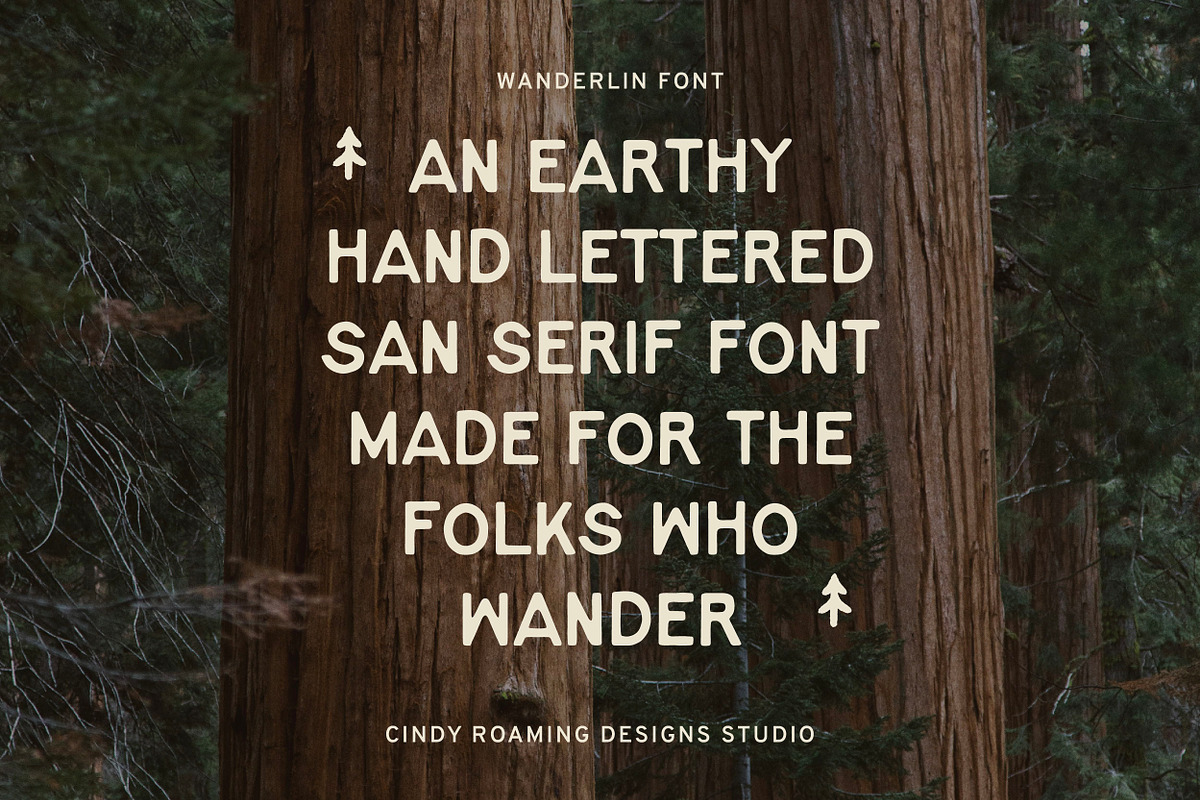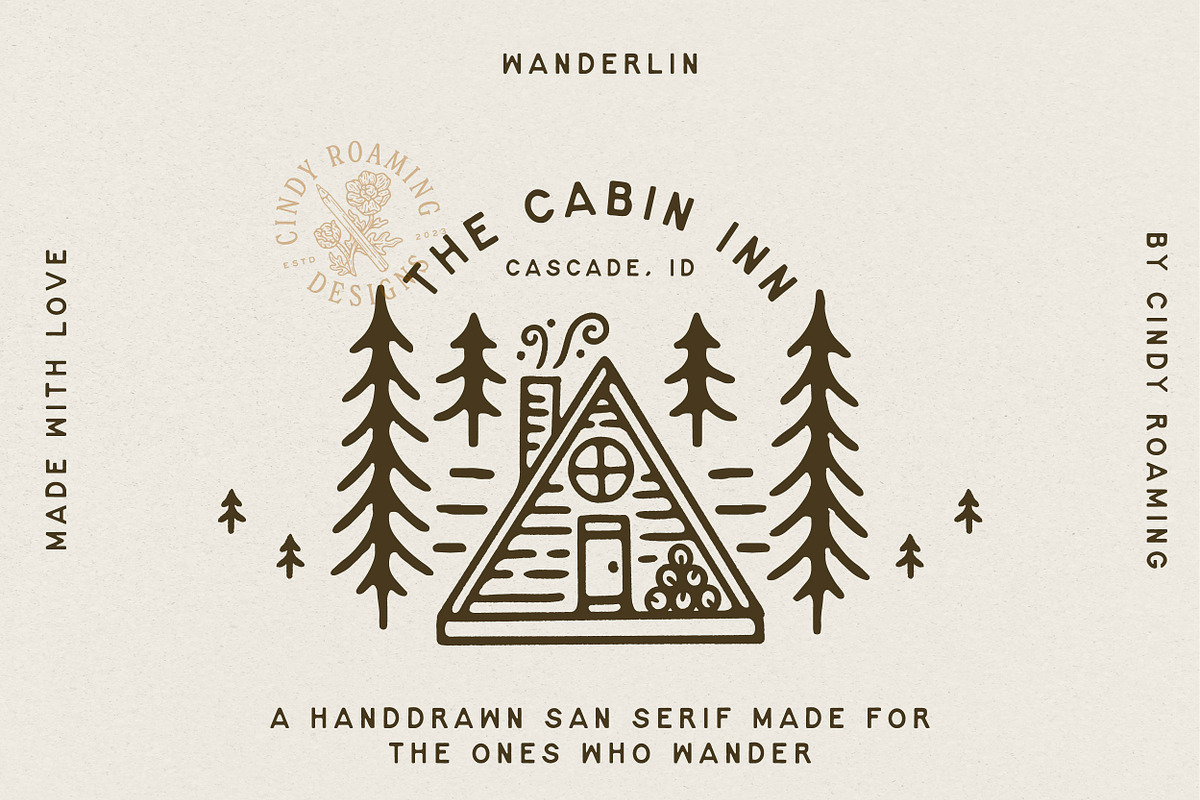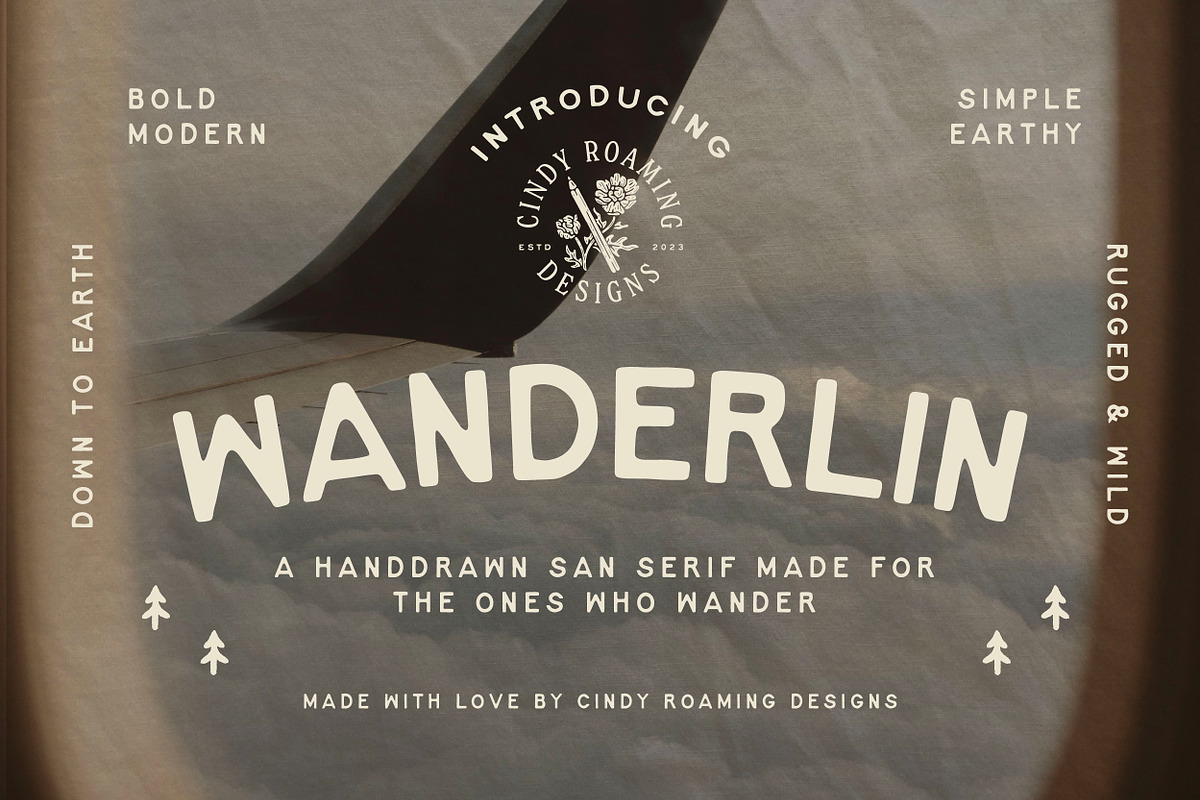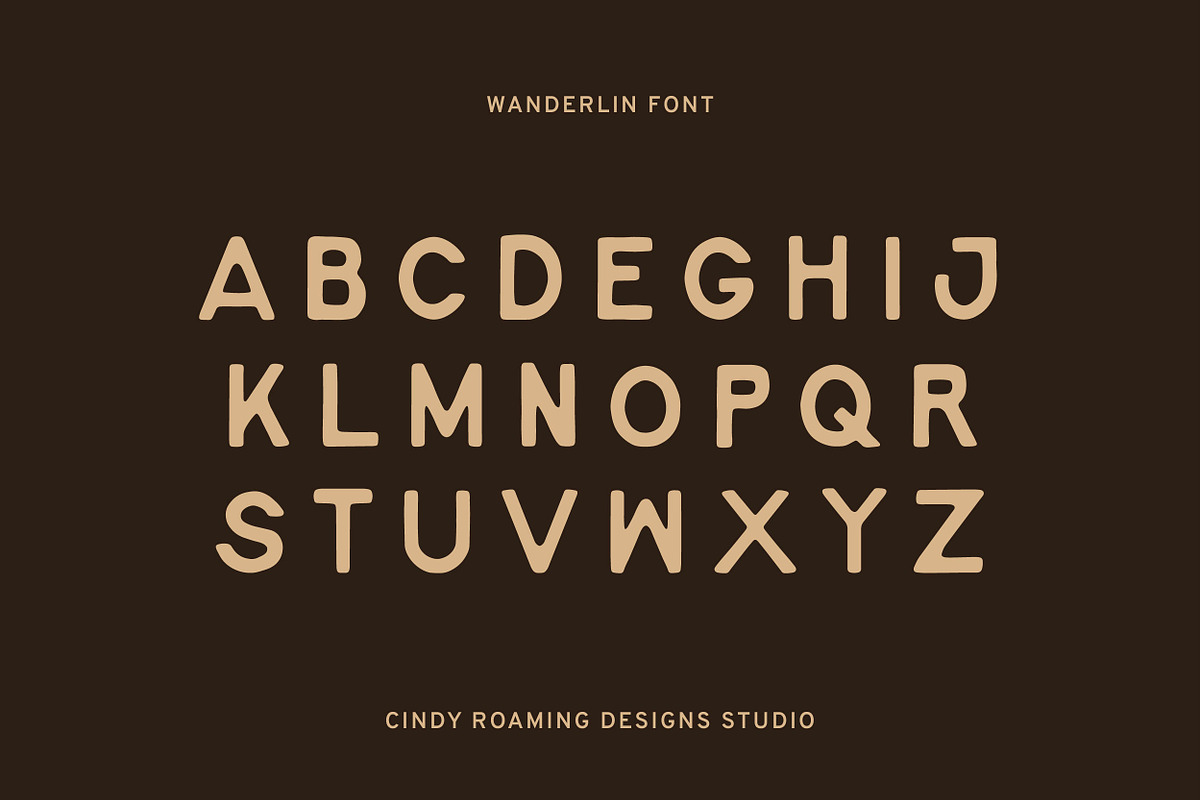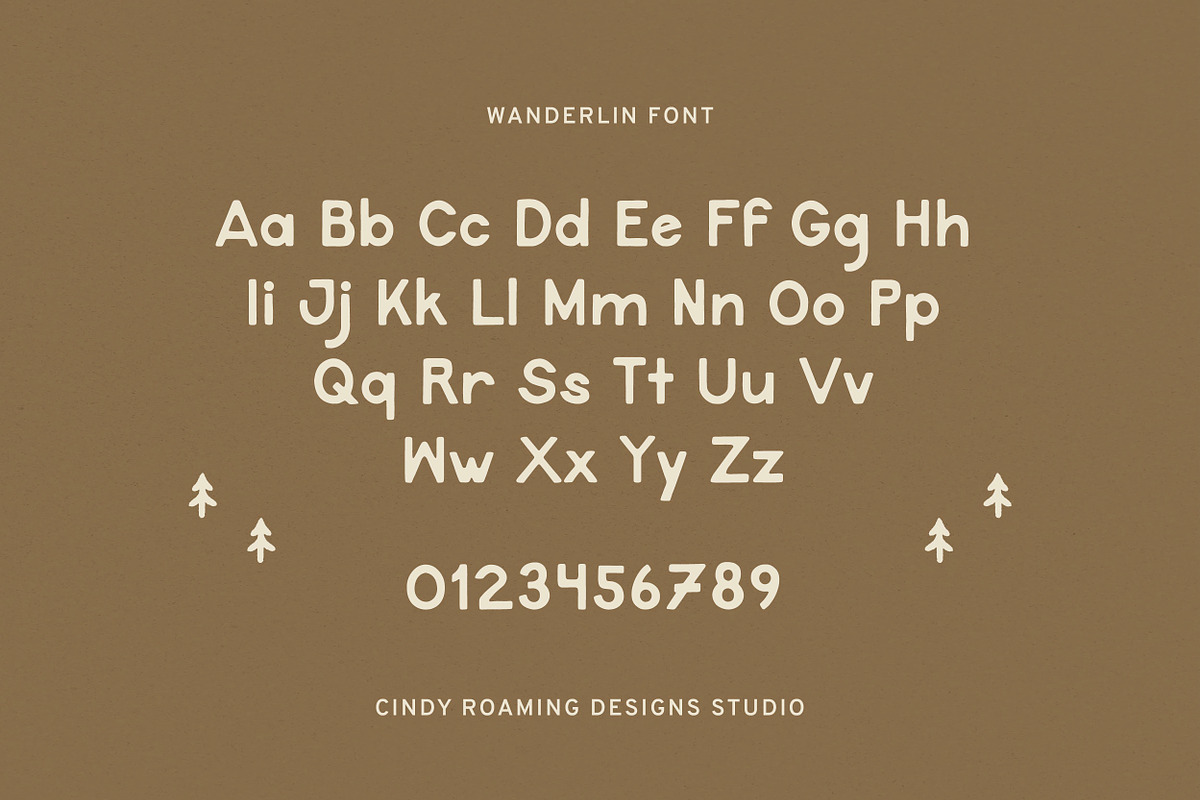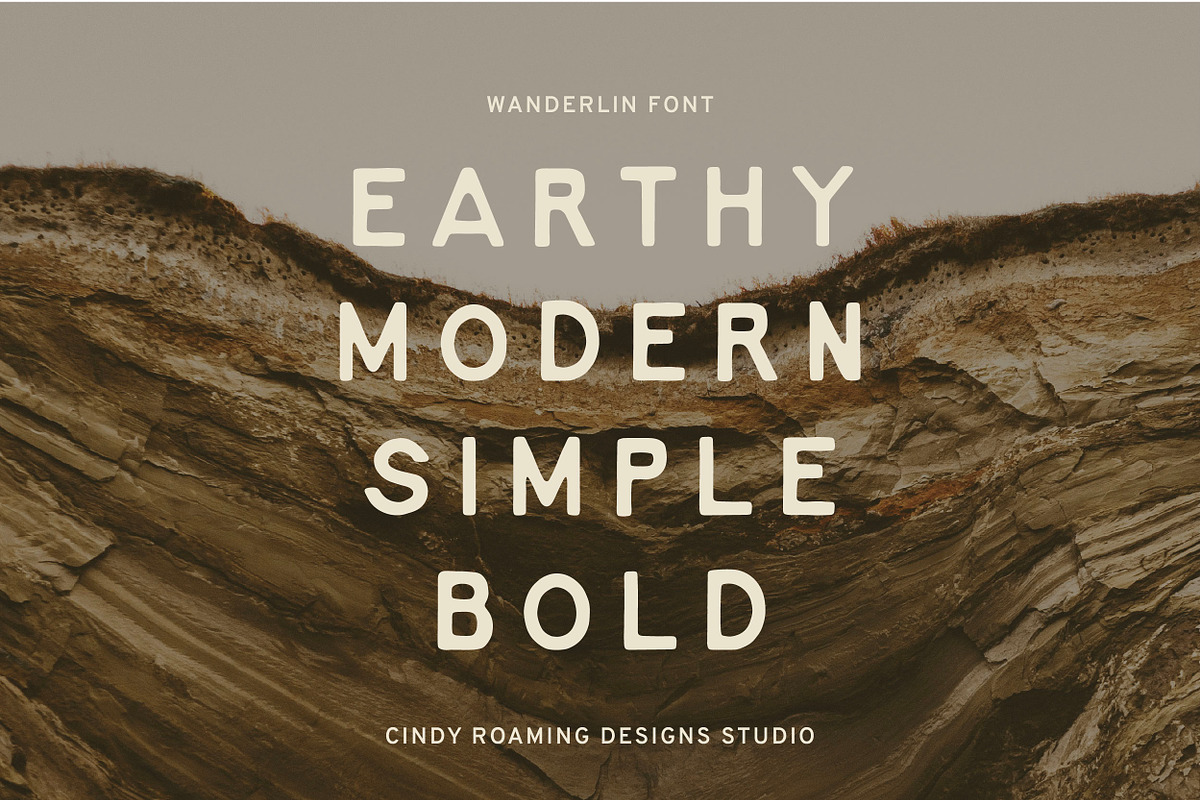
WANDERLIN by Cindy Roaming Designs
Wanderlin is a rugged, handdrawn san serif that is perfect for earthy logos and brands that want to evoke a sense of wanderlust into their designs. 🌲🪵
This font design is inspired by the fonts we see on road trips found on road signs and by the national parks. Outdoorsy, bold, and full of adventure. While it's not perfect, no road trip goes as planned, sometimes there are curves, bumps, and directions that change along the way. It's all part of the experience. 🏔